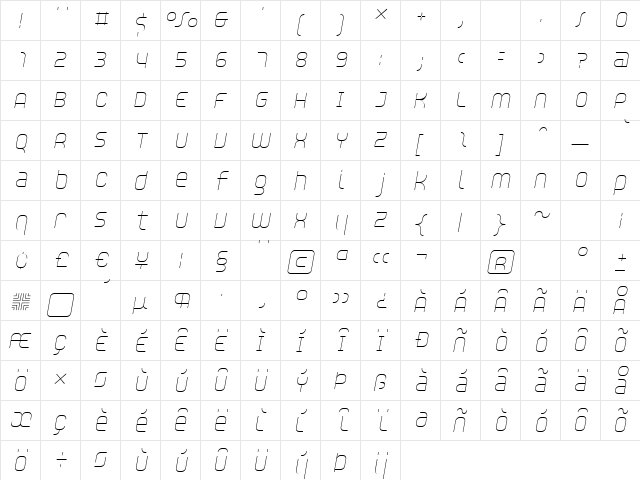
Unisect LightOblique Font Preview
| Foundry | YouWorkForThem |
| Designer | Michael Cina |
Design Context for Unisect Typeface
Unisect offers clean, dependable letterforms without strong stylistic allegiance, making it a practical choice for designers who need flexibility. The dynamic lean of this cut emphasises speed and emphasis in any layout. The delicate stroke weight brings airiness and refinement to layouts.